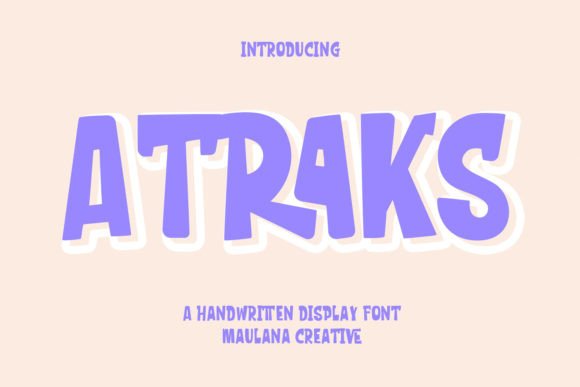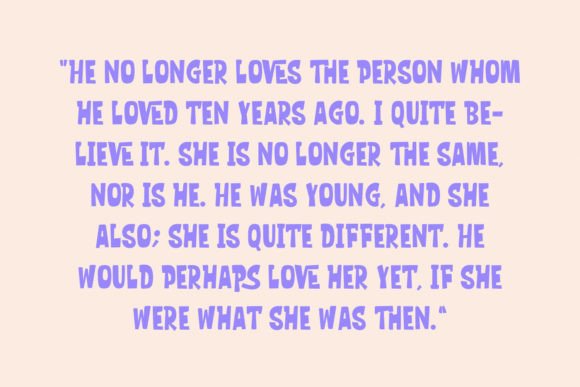
About Atraks
Atraks is a casual slab serif font with medium-low contrast strokes, a fun character with a bit of ligature, and alternates to give you extra creative work. Atraks is good for logo design, social media, movie titles, book titles, short text, and long text, and good for your secondary text combined with a sans or serif. Make stunning work with Atraks font.